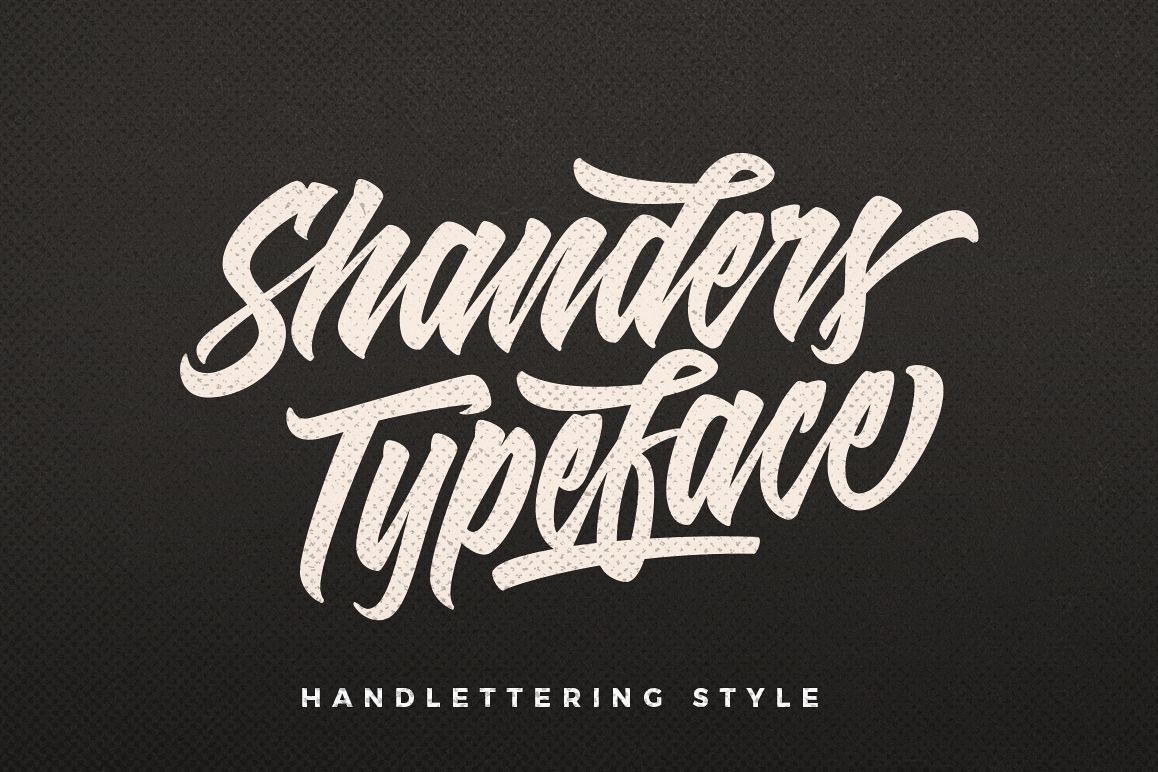
Shanders
Shanders is a hand brush typeface, with authentic Clean Brush imperfections, and a very bouncy baseline It has a perfectly paired complimentary marker font , and a super handy set of bonus Swash. Ideal for logos, handwritten quotes, product packaging, header, poster, merchandise, social media & greeting cards.Files Include :